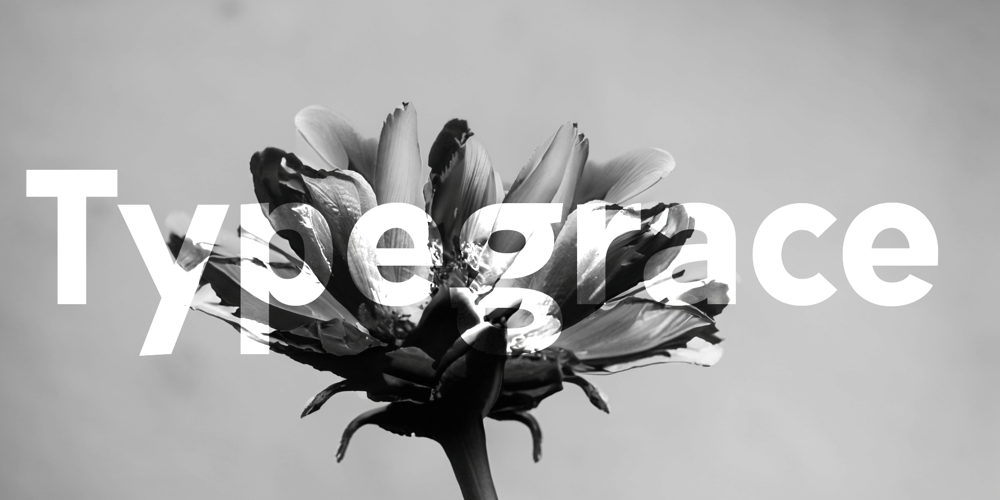
Typegrace Font Family was designed by Leonhard Katschner and published by Brave Type. Typegrace contains 14 styles and family package options. Striking a pose between clean and cool, Typegrace is the modern sans serif for those who break the mold. Crisp lines and open forms ensure your message shines, while a hint of playful curve adds a touch of personality. This isn’t your old-school typeface – Typegrace offers a range of weights, ready to rock from airy body text to bold headlines. Websites, branding, brochures – Typegrace injects modern flair without compromising clarity. It’s the perfect font for the design maverick, ready to make a statement with a touch of understated charisma.